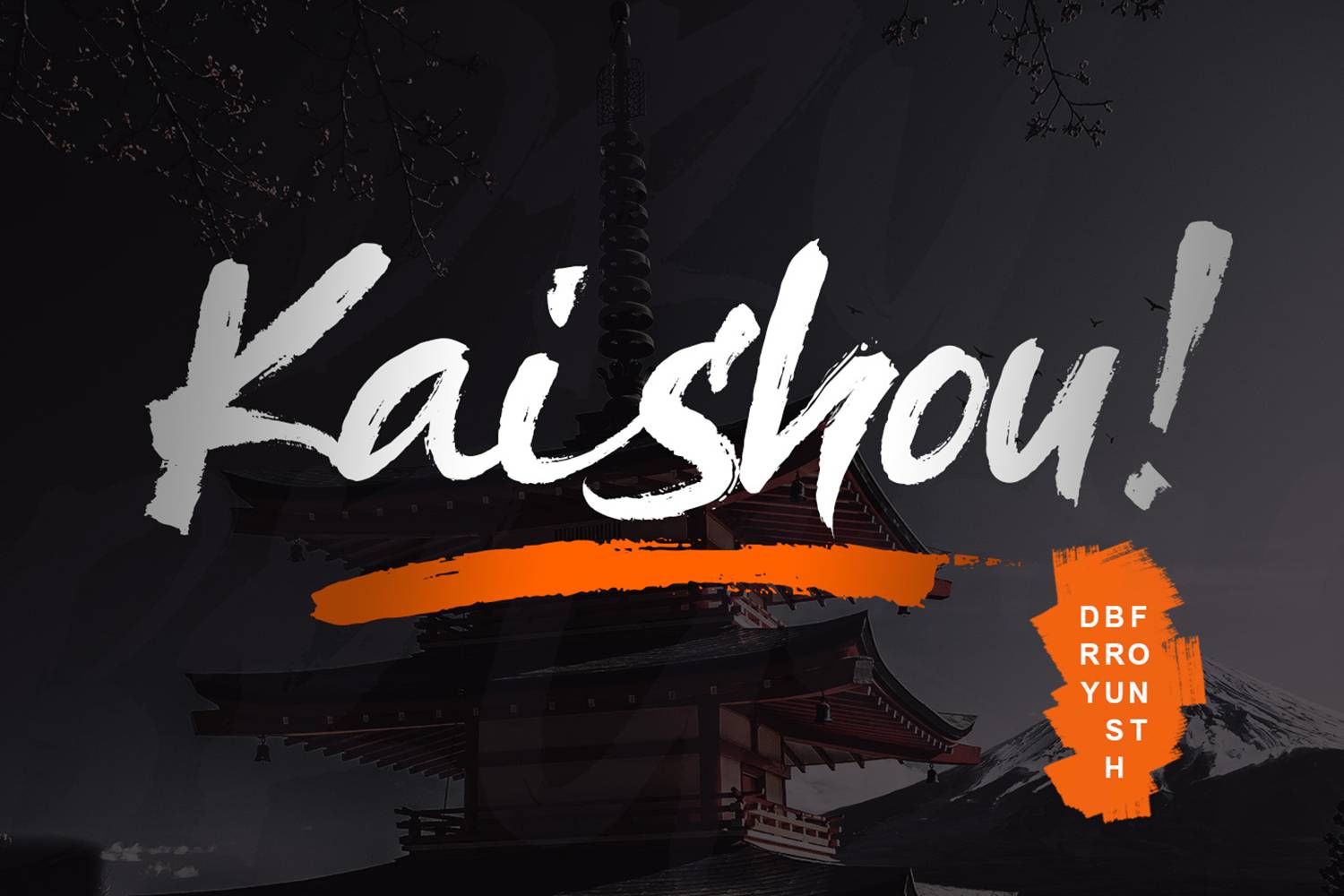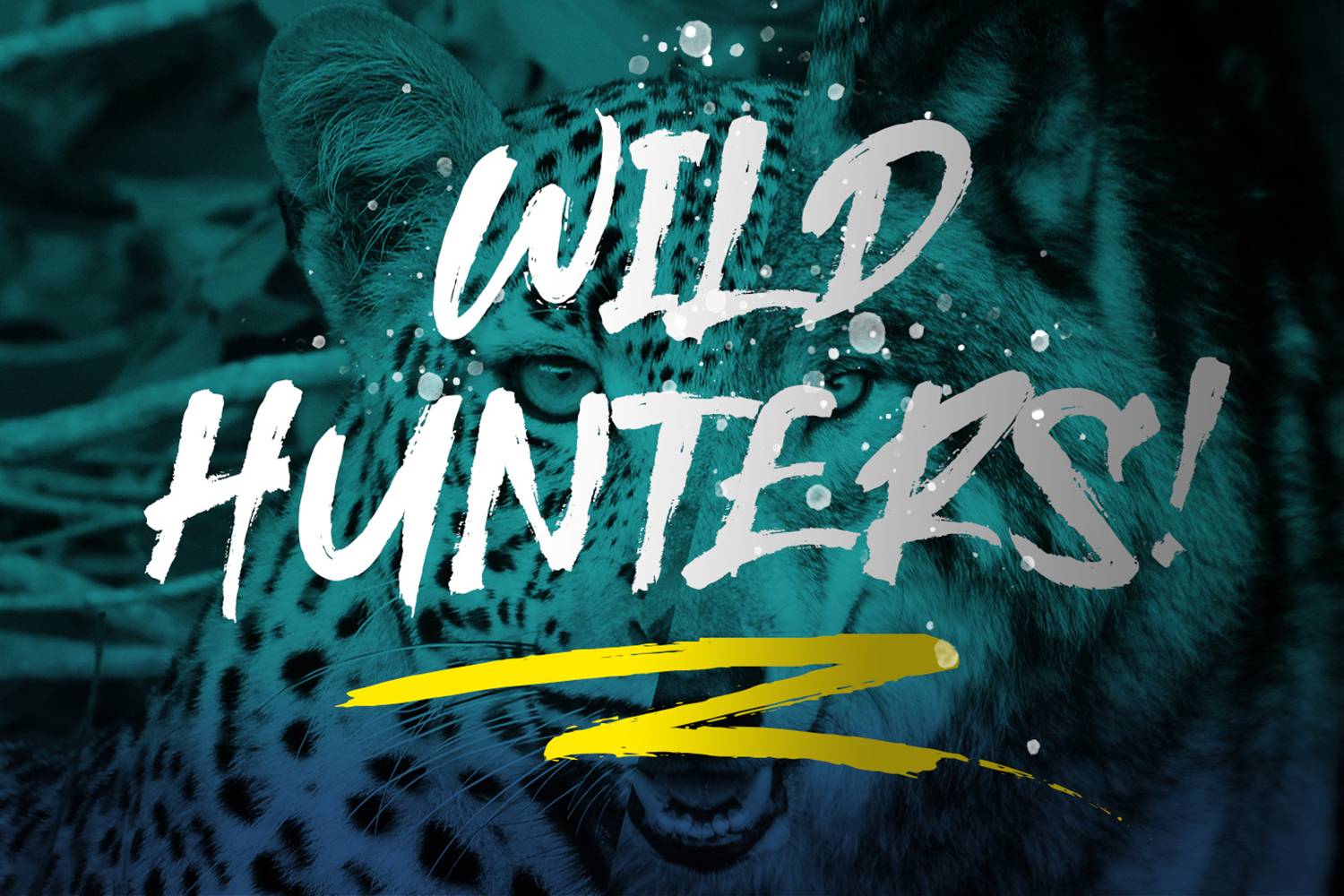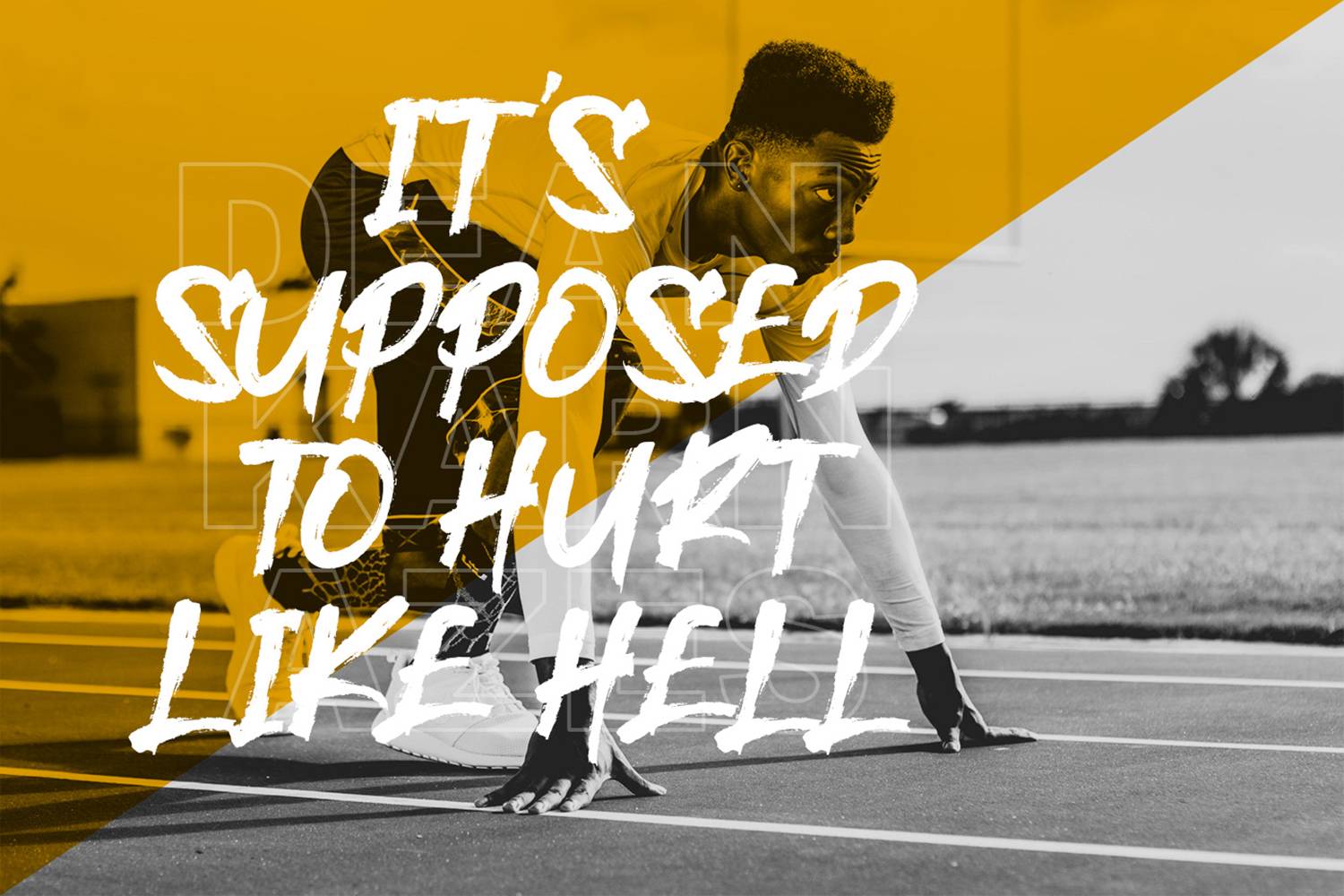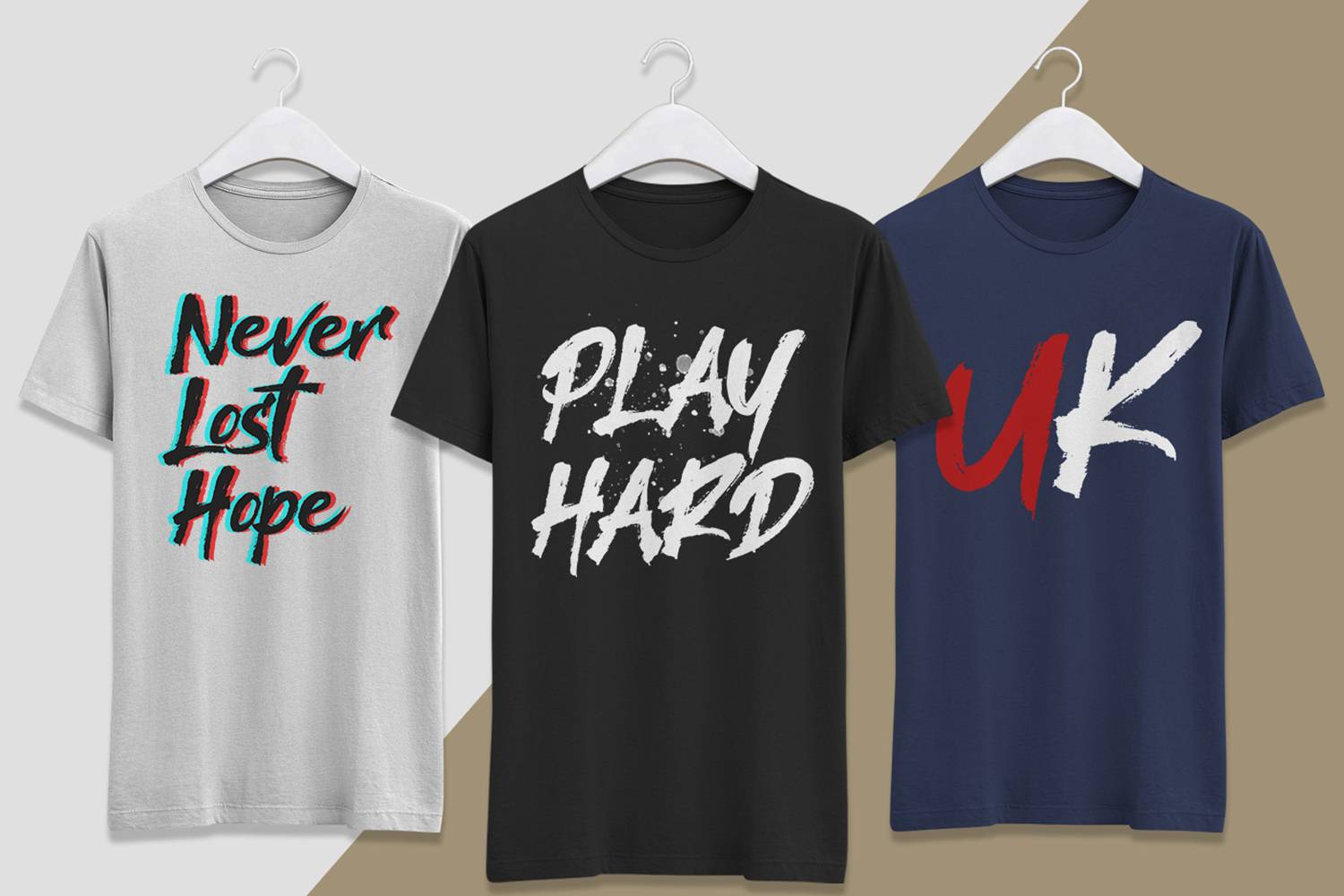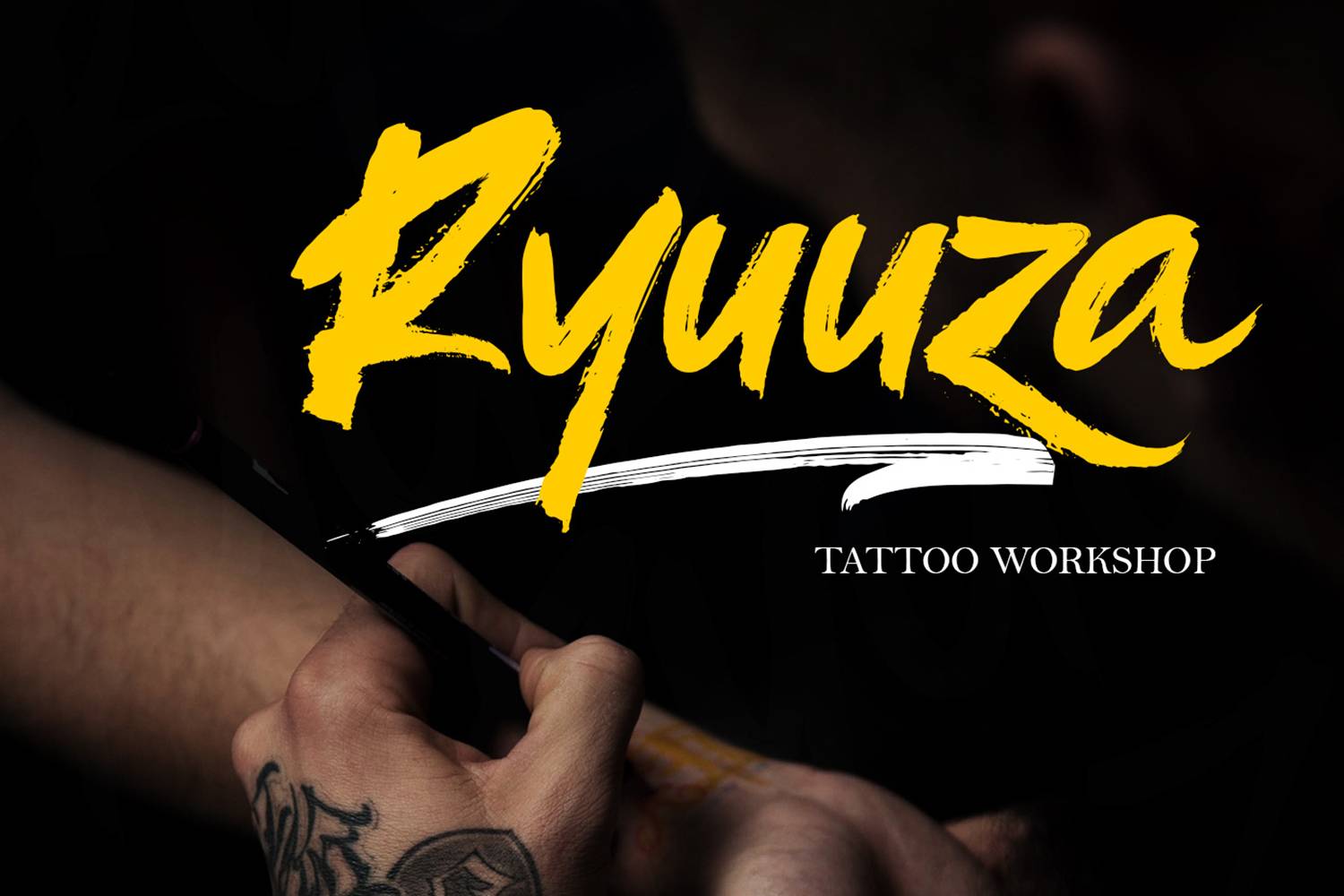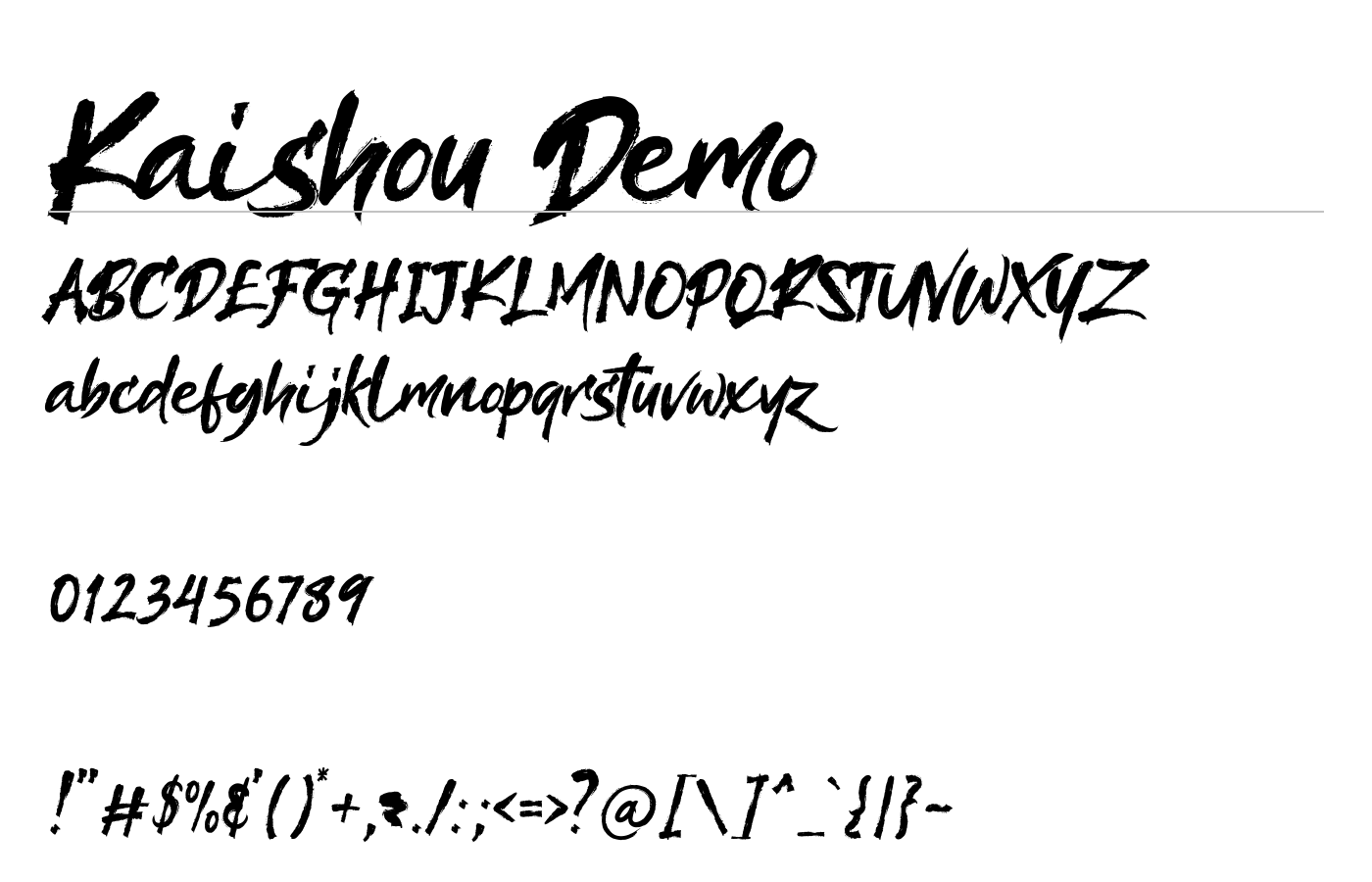
Kaishou Font is a bold, brush script typeface that features dynamic, hand-painted strokes with an organic, textured finish. Its lively and expressive letterforms convey a sense of energy and creativity, making it ideal for artistic branding, posters, and dynamic headlines where a personal, handcrafted feel is desired. This font works well in designs that aim to communicate passion and individuality, adding a bold, artistic flair to any project.
Kaishou Font
About Kaishou Font